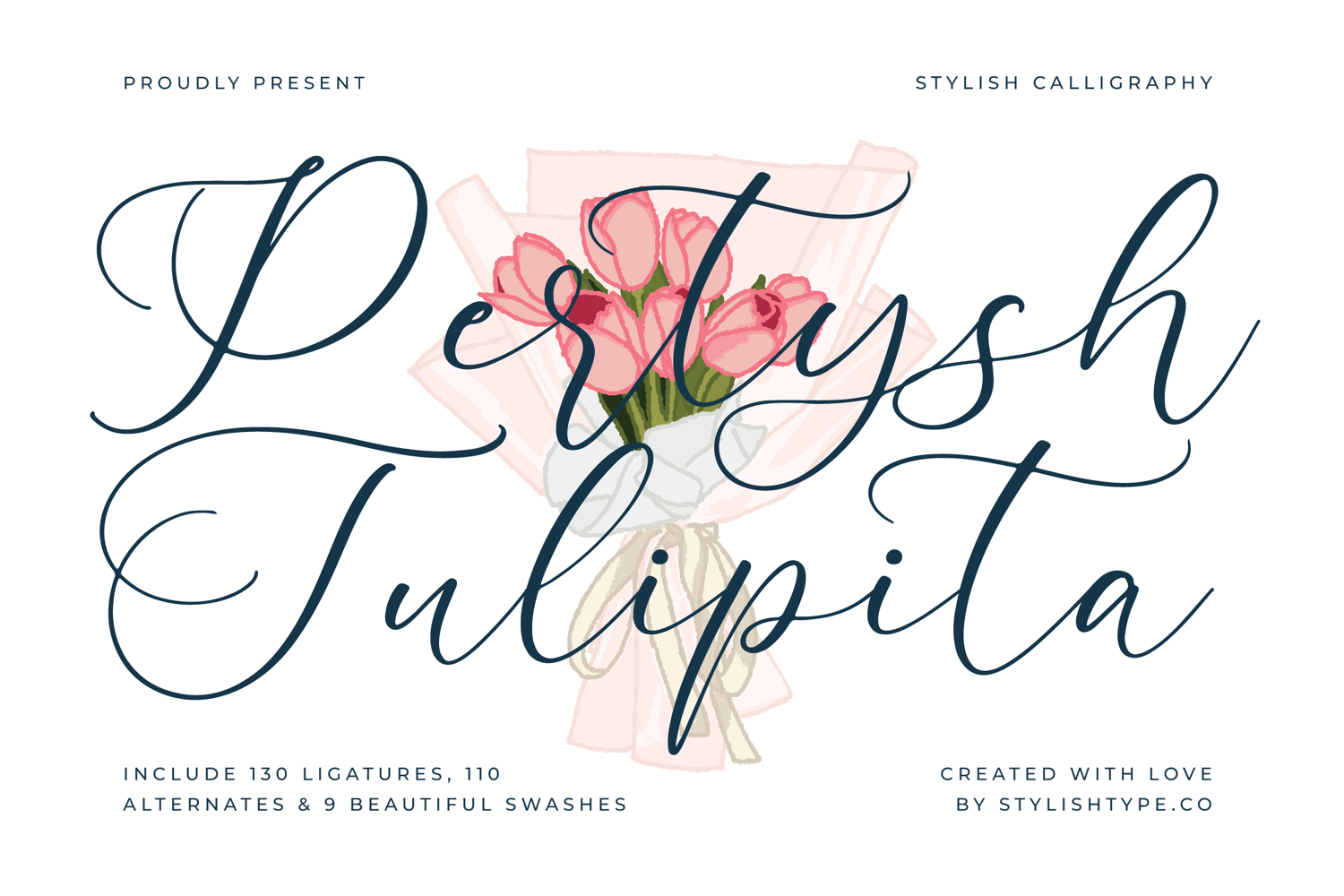
Pertysh Tulipita - Stylish Calligraphy
Redefine sophistication in your design portfolio with the exquisite curves of Pertysh Tulipita - Stylish Calligraphy. This remarkable script typeface combines the fluid grace of traditional handwriting with modern typographic precision, offering an instantly recognizable aesthetic of luxury and refinement. Its delicate, high-contrast strokes and generous looping ascenders and descenders create a captivating visual rhythm, perfect for projects requiring a touch of personalized elegance and a deeply romantic feel.
Unlock unprecedented customization through a vast library of OpenType features engineered into Pertysh Tulipita - Stylish Calligraphy. Featuring over 130 meticulously designed ligatures and 110 stylistic alternates, this font provides immense creative flexibility, allowing designers to craft truly unique wordmarks and titles. Utilize the 9 beautiful swashes to extend lines and add dramatic flair, ensuring every design feels handwritten, exclusive, and professionally polished.